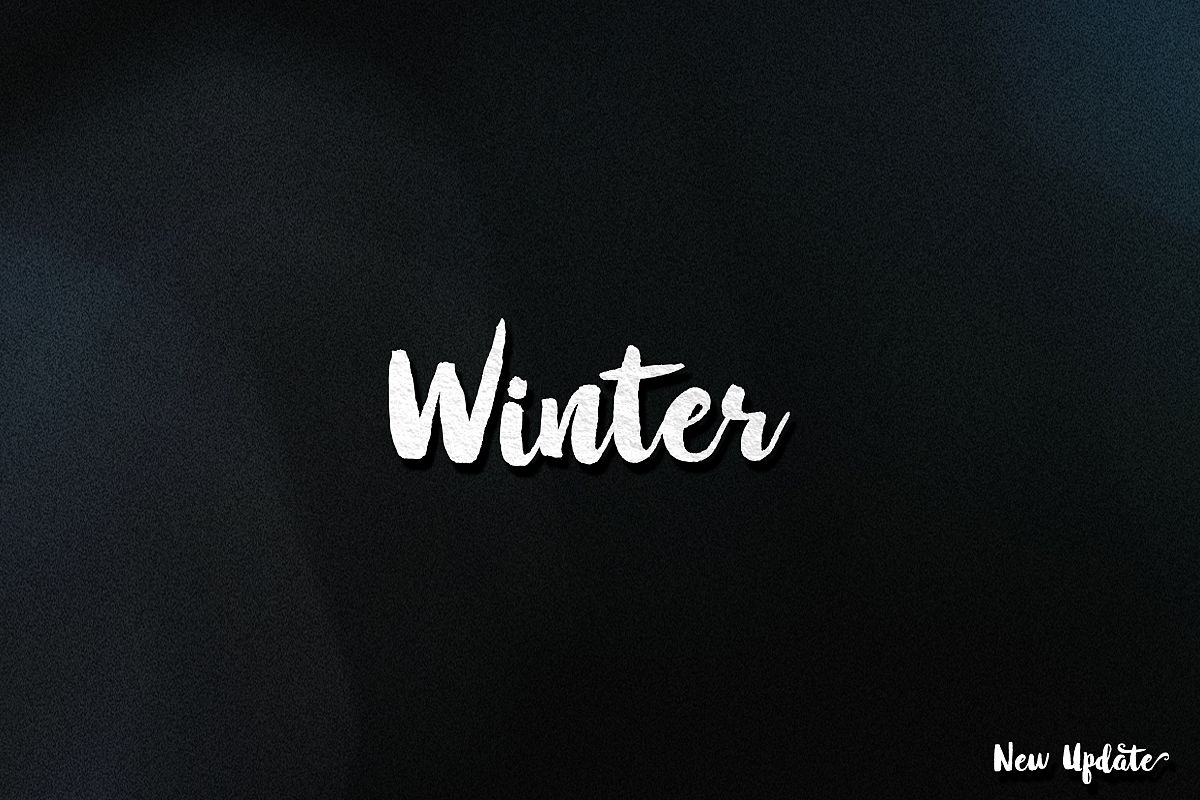
Winter Brush
New Present Winter Brush
Winter Brush is a smooth hand marker, modern style marker , which was created to meet the needs of your next design project. Winter Brush can used for various purposes. such as the title, logo, correspondence, signage, labels, newsletters, badges, t-shirt, etc.
What included: Comes with Uppercase and lowercase characters, large set of punctuation glyphs, numerals, supports international languages, stylistic alternates for several key lower case characters and this Font has given PUA unicode (specially coded fonts).